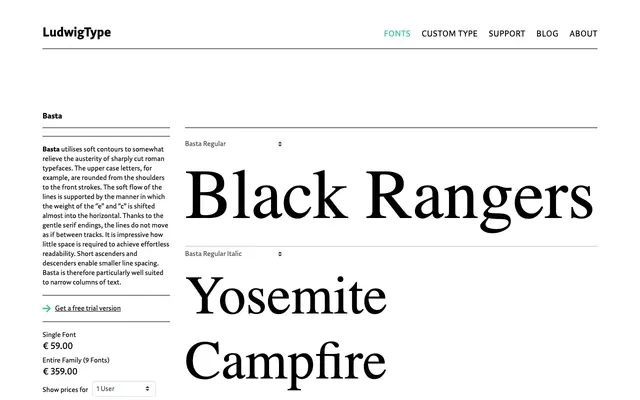
Basta
A humanist text serif from Ludwig with four weights, matching italics and small caps across the lighter cuts.
A text-oriented humanist serif with a nine-style family spanning Light, Regular, Bold and Black. Small caps are provided at Light and Regular, alongside italics at Light, Regular and Bold, giving the family good versatility for long-form editorial and book work. The heavier Black weight rounds out the range for display use without a matching italic.
The letterforms suggest a humanist serif with warm, readable proportions suited to text setting. The inclusion of small caps and italic cuts across multiple weights confirms a traditional text-serif approach.